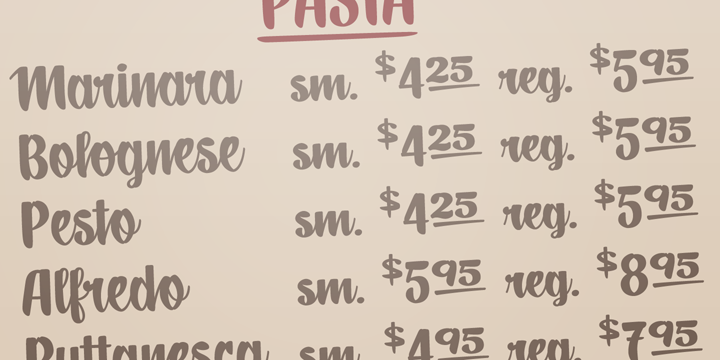
Beppo Brush
por Lindstrom Design
La familia tipográfica Beppo Brush fue diseñada por Nils Lindstrom y publicada por Lindstrom Design. Beppo Brush contiene 1 estilos.
Beppo is a bold upright casual script with a condensed character width and a full palette of ordindals, small caps, and diacritics. Beppo flavors things up with old style figures and quirky, contextual alternate connections. Legible, compact and smothered in typographic cheese - it just smells good!